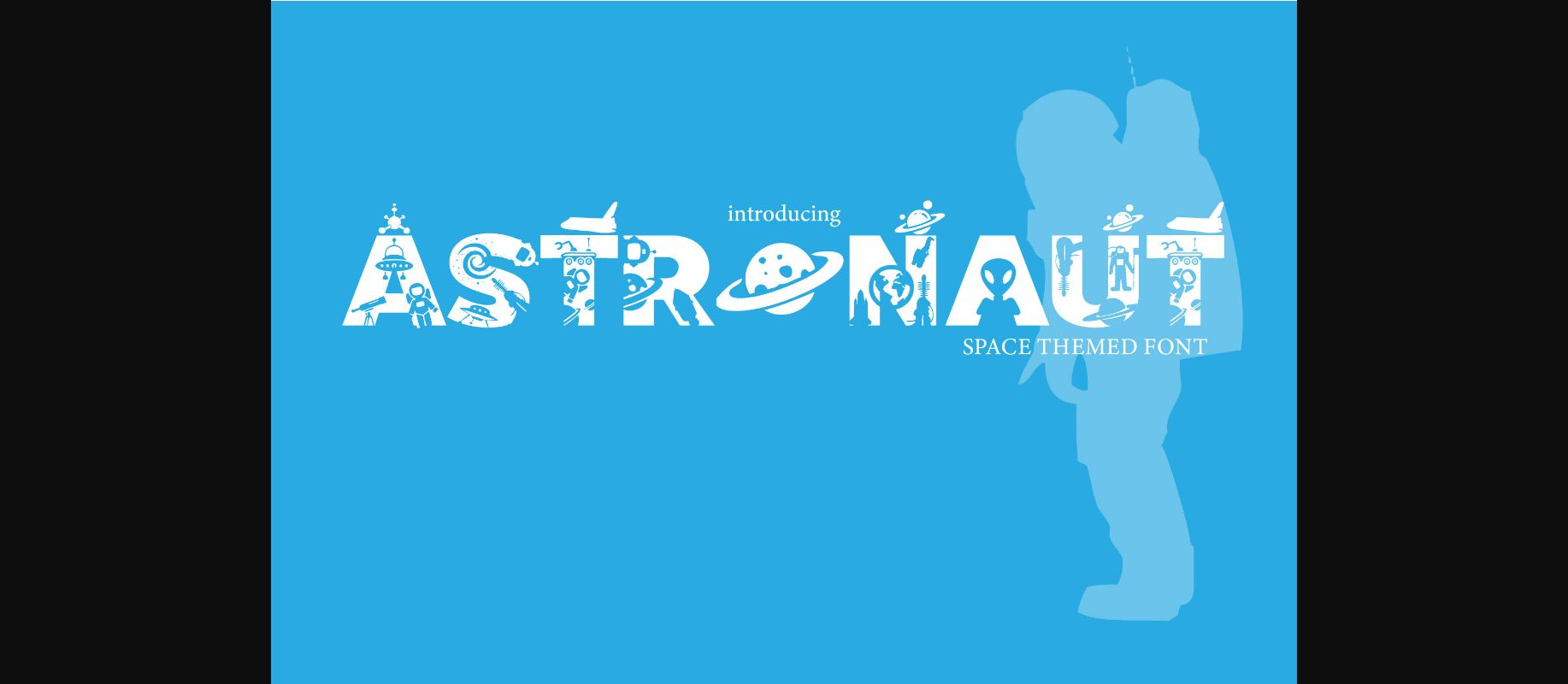
About Astronaut Font
Astronaut is a bold, cool, and assertive decorative font that will bring fun to any design you wish to create! Add it now to your favorite creative projects, and make them outstanding!